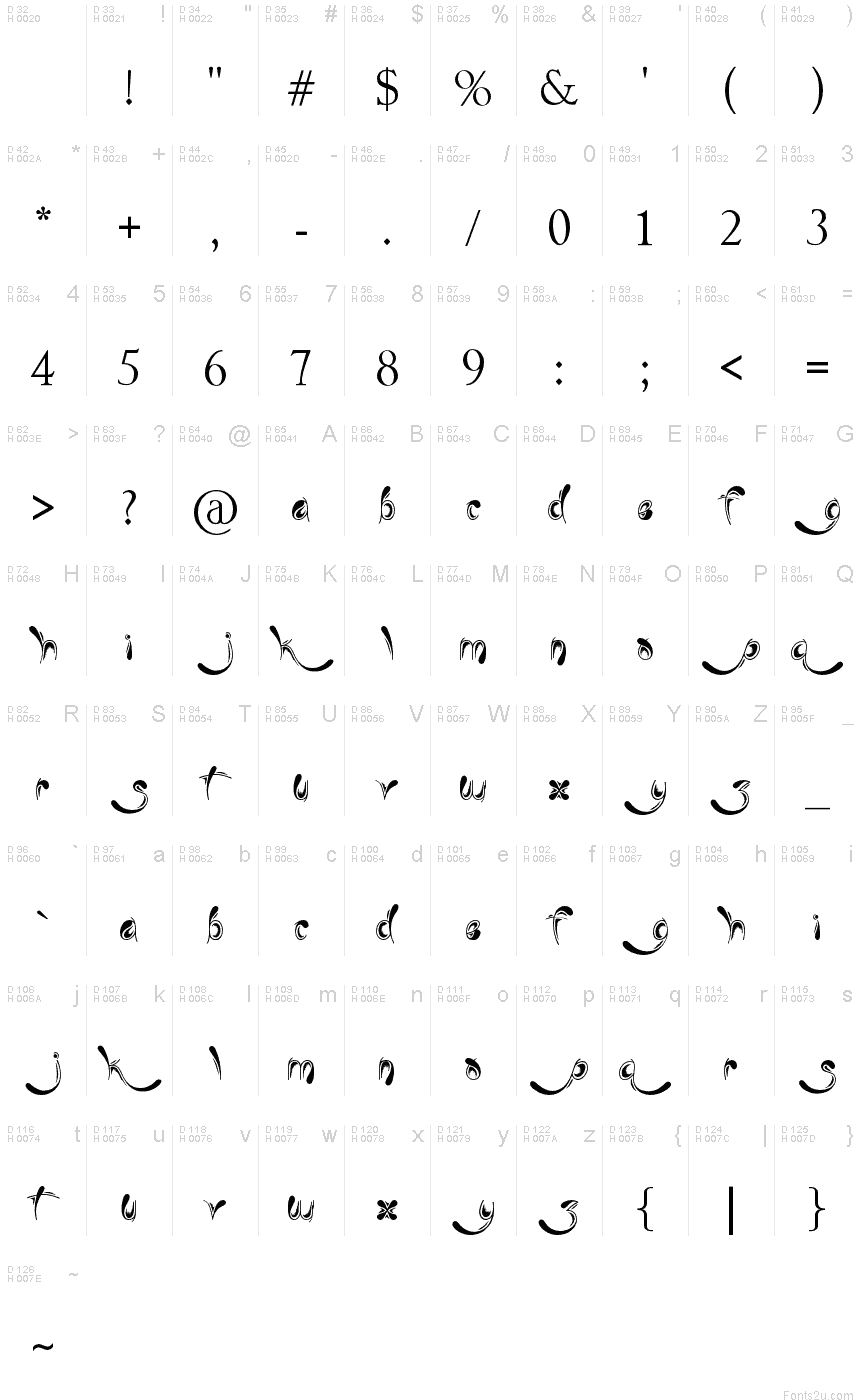
Naughty Nights from TattooWoo.com is a free groovy decorative display font with elastic, ink-like lettering. Hairline curves snap into dense teardrops and looping swashes.
Packaging can use that restless silhouette for nightclub drinks, tattoo-care products, and music merchandise aimed at an alternative crowd. On event posters and album art, the sweeping strokes can become part of an illustrated emblem, echoing smoke, flames, or liquid shapes rather than behaving like neutral lettering inside a larger, darkly theatrical graphic concept for nightlife.